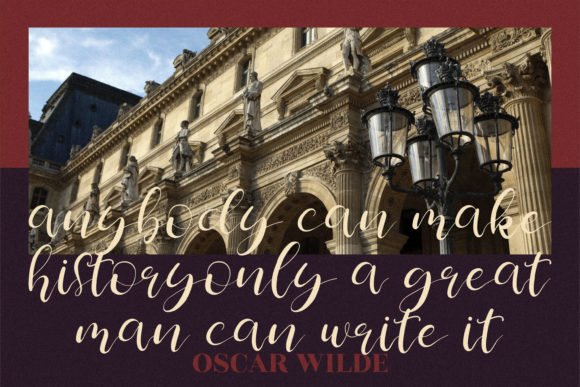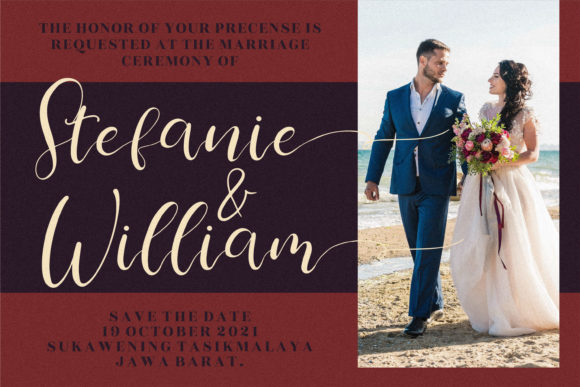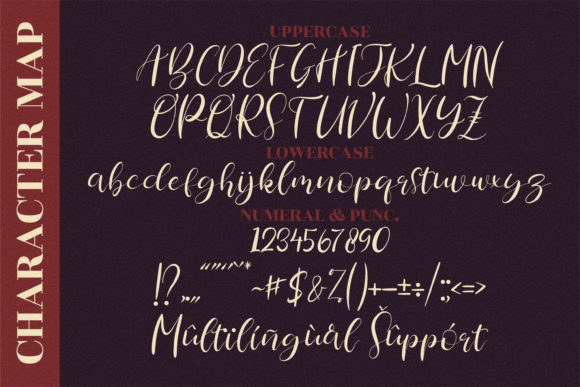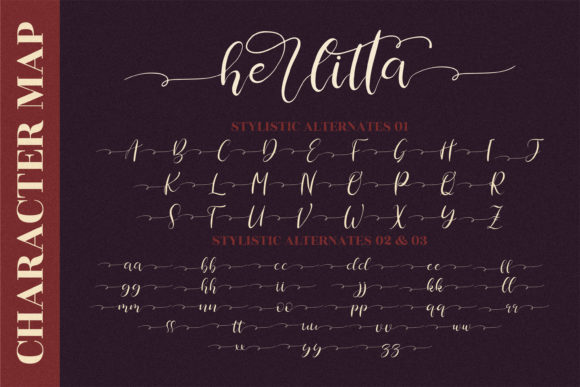
About Herlitta Font
Herlitta is a stunning and refined script font that exudes elegance, class, and modernity. With its timeless appeal, Herlitta is the perfect choice for a wide range of design projects, including logos, branding, invitations, stationery, wedding designs, social media posts, and more.
The beauty of Herlitta lies in its delicate and graceful letterforms. Each character is meticulously crafted, resulting in a font that emanates sophistication and style. Whether you’re designing a high-end logo or an elegant wedding invitation, Herlitta adds a touch of class and professionalism to your designs.
One of the standout features of Herlitta is its versatility. It adapts effortlessly to various design contexts, making it suitable for a wide range of projects. From luxury branding to romantic wedding designs, Herlitta enhances the visual appeal and adds a sense of refinement to any composition.
In addition, Herlitta is PUA encoded, which means you have easy access to all of the glyphs and swashes. This feature enables you to unleash your creativity and explore various design possibilities. You can effortlessly incorporate decorative elements, alternate characters, and ligatures to create customized and unique compositions that truly stand out.
The legibility of Herlitta is also worth noting. Despite its ornate and stylish nature, the font maintains excellent readability, ensuring that your message is effectively communicated to your audience.
In summary, Herlitta is a beautiful and refined script font that adds a touch of elegance, class, and modernity to your designs. With its PUA encoding, you have access to a wide range of glyphs and swashes, allowing for endless creative possibilities. Whether you’re creating logos, branding materials, invitations, or social media posts, Herlitta elevates your designs and leaves a lasting impression.